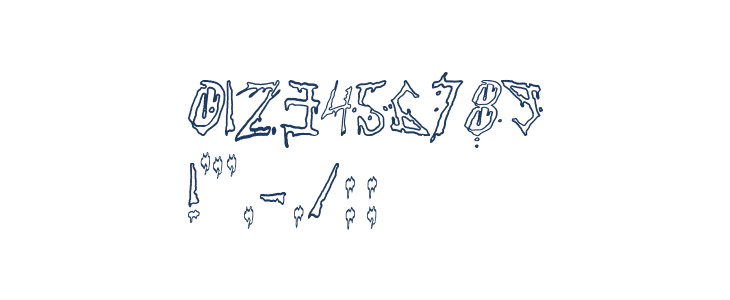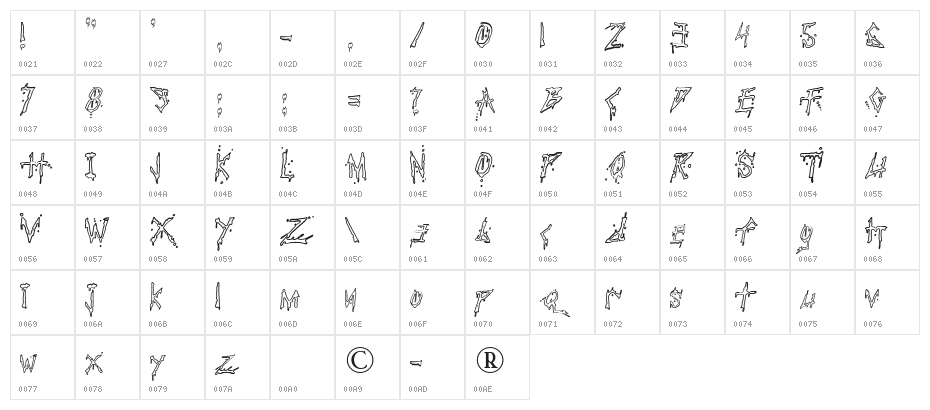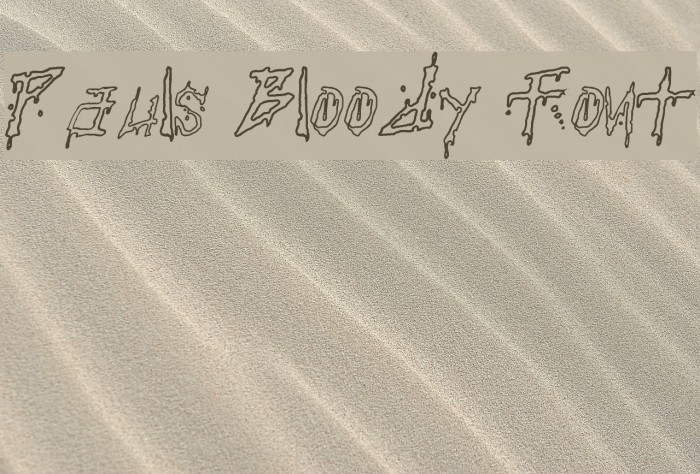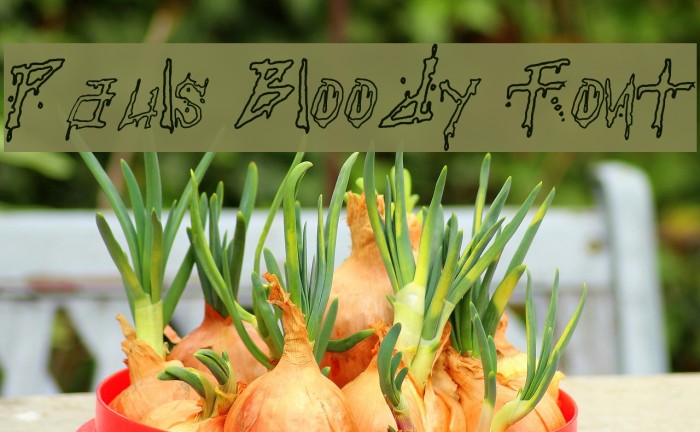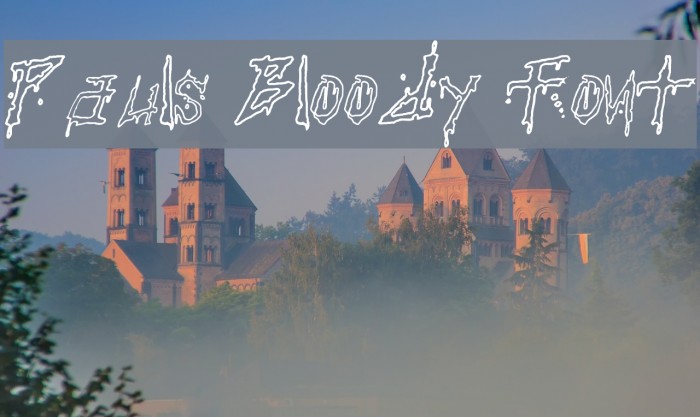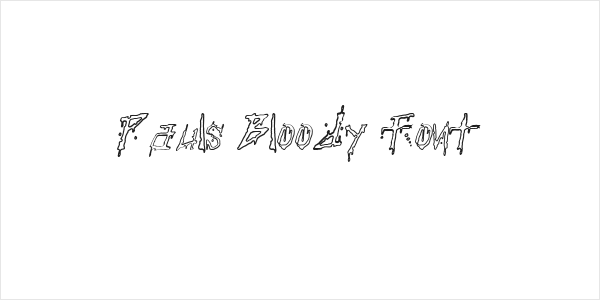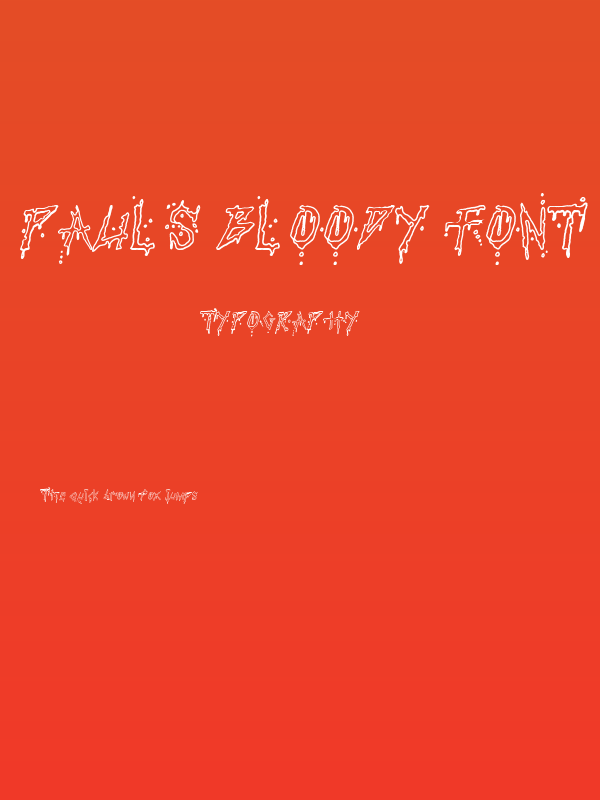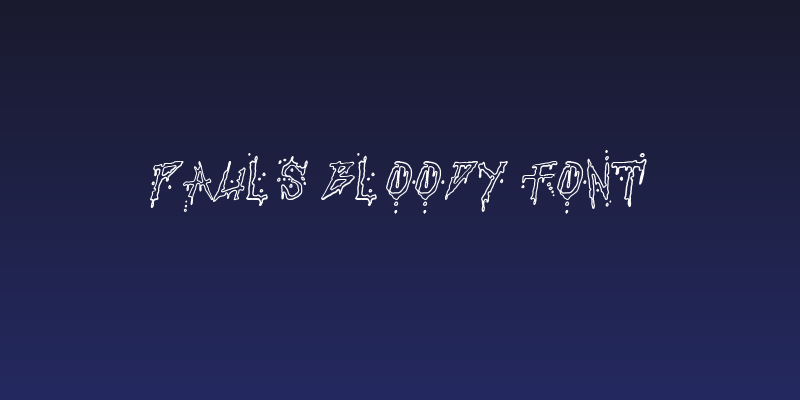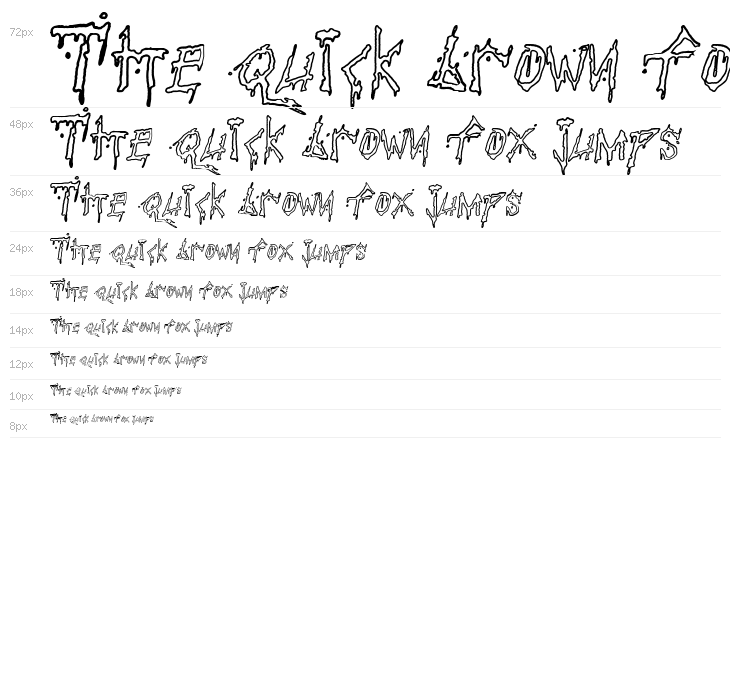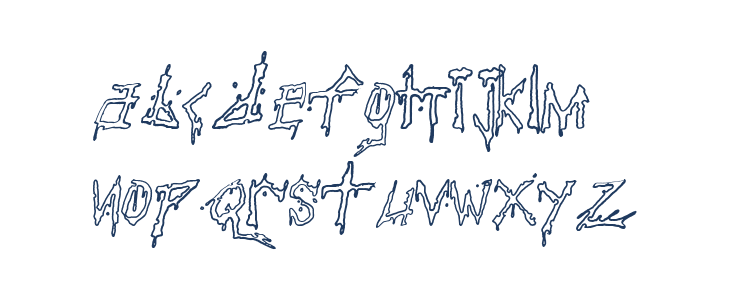
Pauls Bloody Font Font
Pauls Bloody Font Description
This font features a unique, horror-inspired design with dripping, jagged edges that resemble blood or slime. The characters are irregular and uneven, giving a chaotic and unsettling appearance. The uppercase and lowercase letters maintain a consistent style, with exaggerated serifs and sharp points. Numbers and special characters follow the same theme, enhancing the eerie aesthetic. This font is perfect for creating a spooky or Halloween-themed atmosphere, making it ideal for posters, invitations, or any project requiring a dramatic, eye-catching typeface.
| Proposed Projects | Ideal for Halloween posters, horror movie titles, themed invitations, and spooky decorations. |